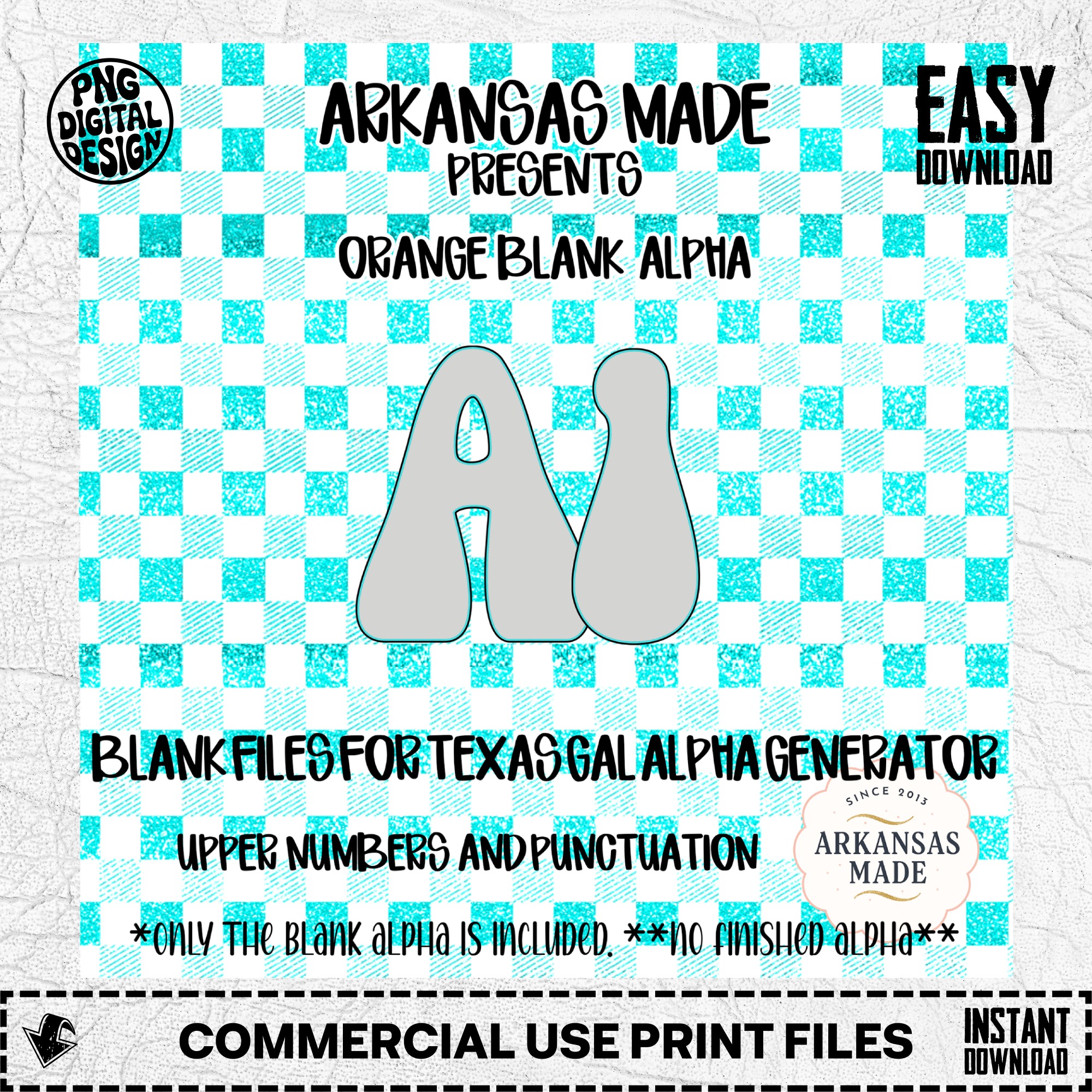
Blank Fillable Alpha Sets – Digital Letters & Numbers Outline for Sublimation Crafting | Bubbly Font DIY Design Template | Custom Text
Unlock endless creativity with our Blank Fillable Alpha Sets, a complete digital collection of letters, numbers, and punctuation outlines for all your crafting projects. Perfect for sublimation, vinyl cutting, or any DIY design where you want to add your own patterns and textures. These versatile digital templates are ideal for crafters, small business owners, and graphic designers looking to personalize everything from apparel to home decor. Create unique personalized gifts for birthdays, holidays, or special events with ease.